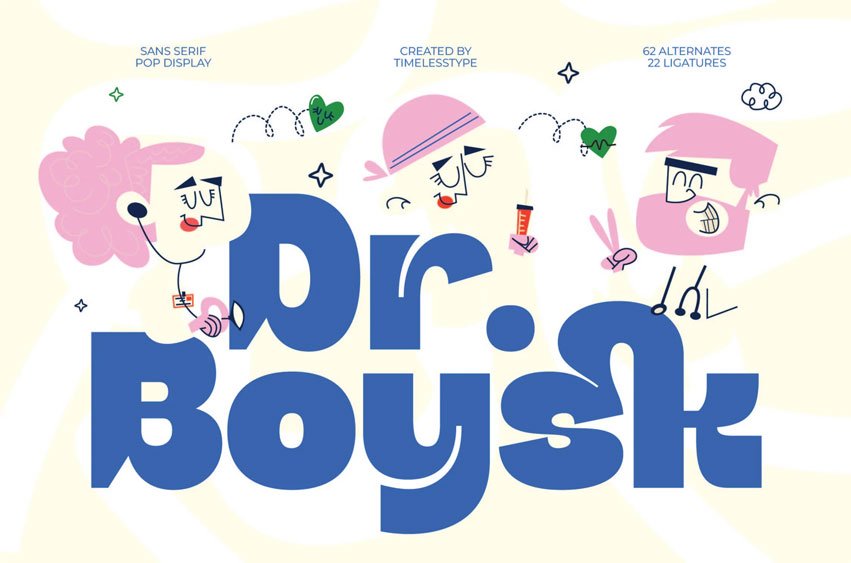
Dr Boysk Font is a sans-serif pop display font designed with a fun, bold, and quirky personality. Featuring 62 alternates and 22 ligatures, this typeface delivers smooth, playful forms perfect for children’s themes, educational projects, cartoons, and creative branding that needs a cheerful vibe.
Its rounded shapes and friendly rhythm make it highly readable and full of life. Ideal for packaging, logos, posters, and social media graphics, Dr. Boysk captures the essence of playfulness with professional design precision — making every design feel lighthearted yet impactful.